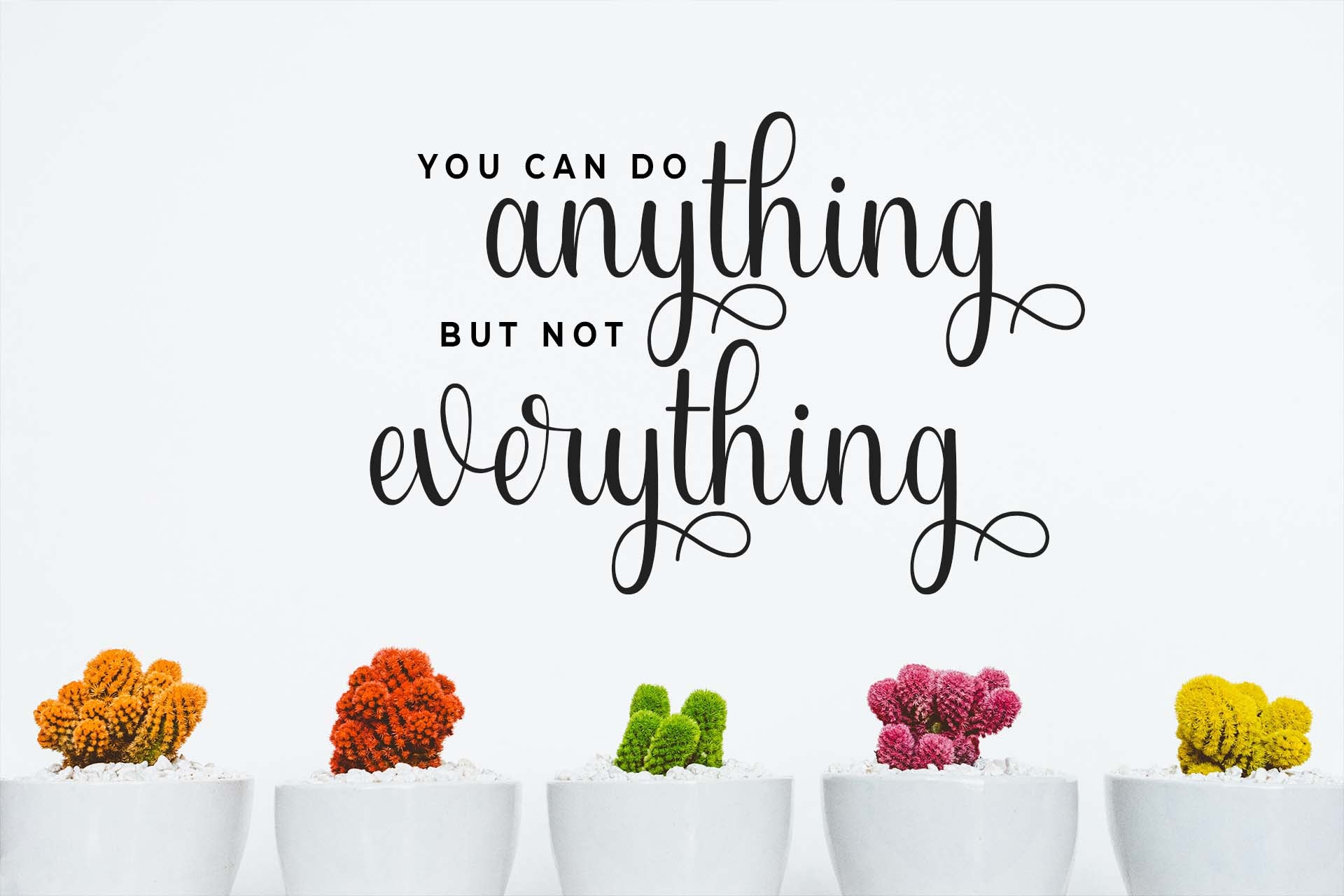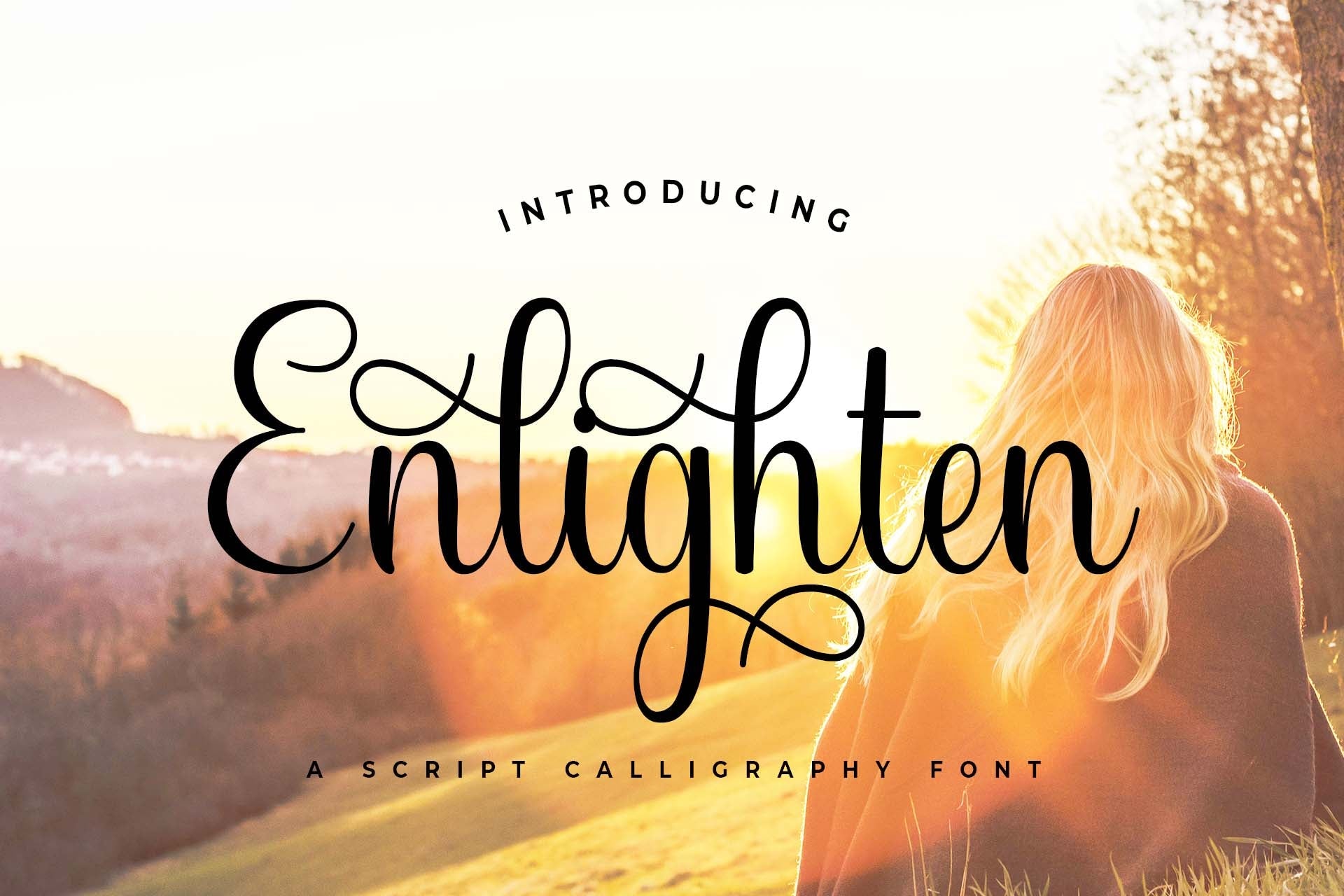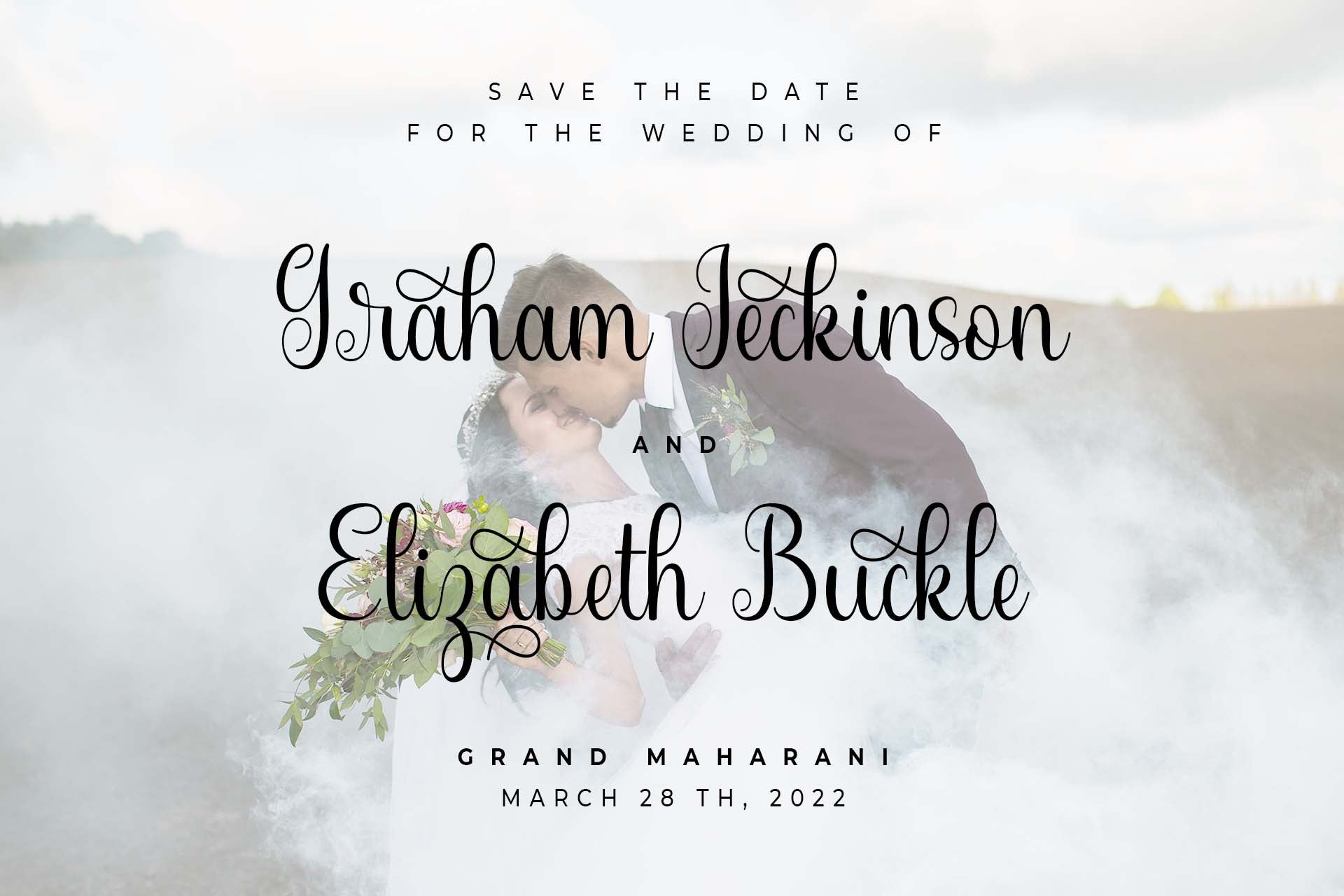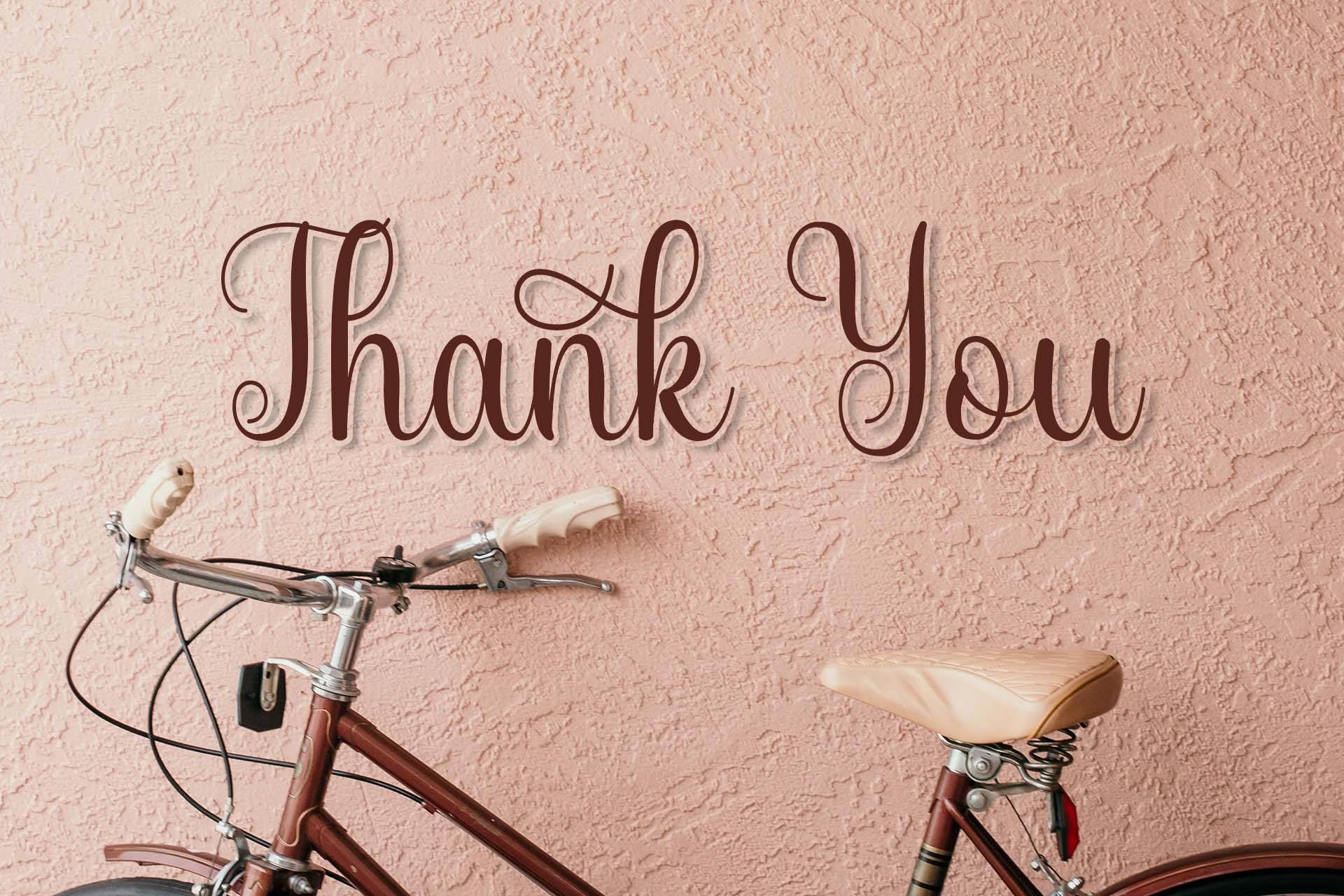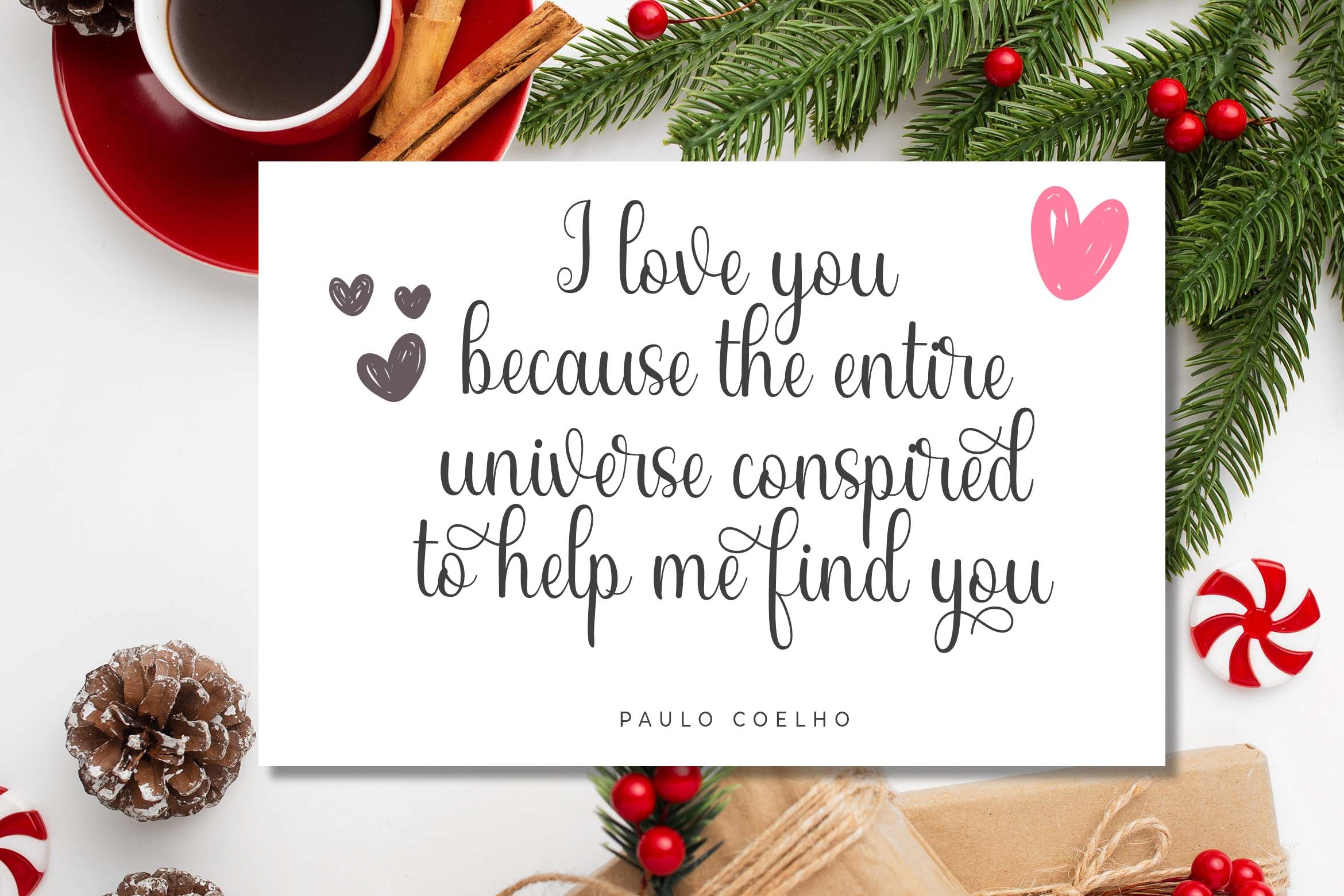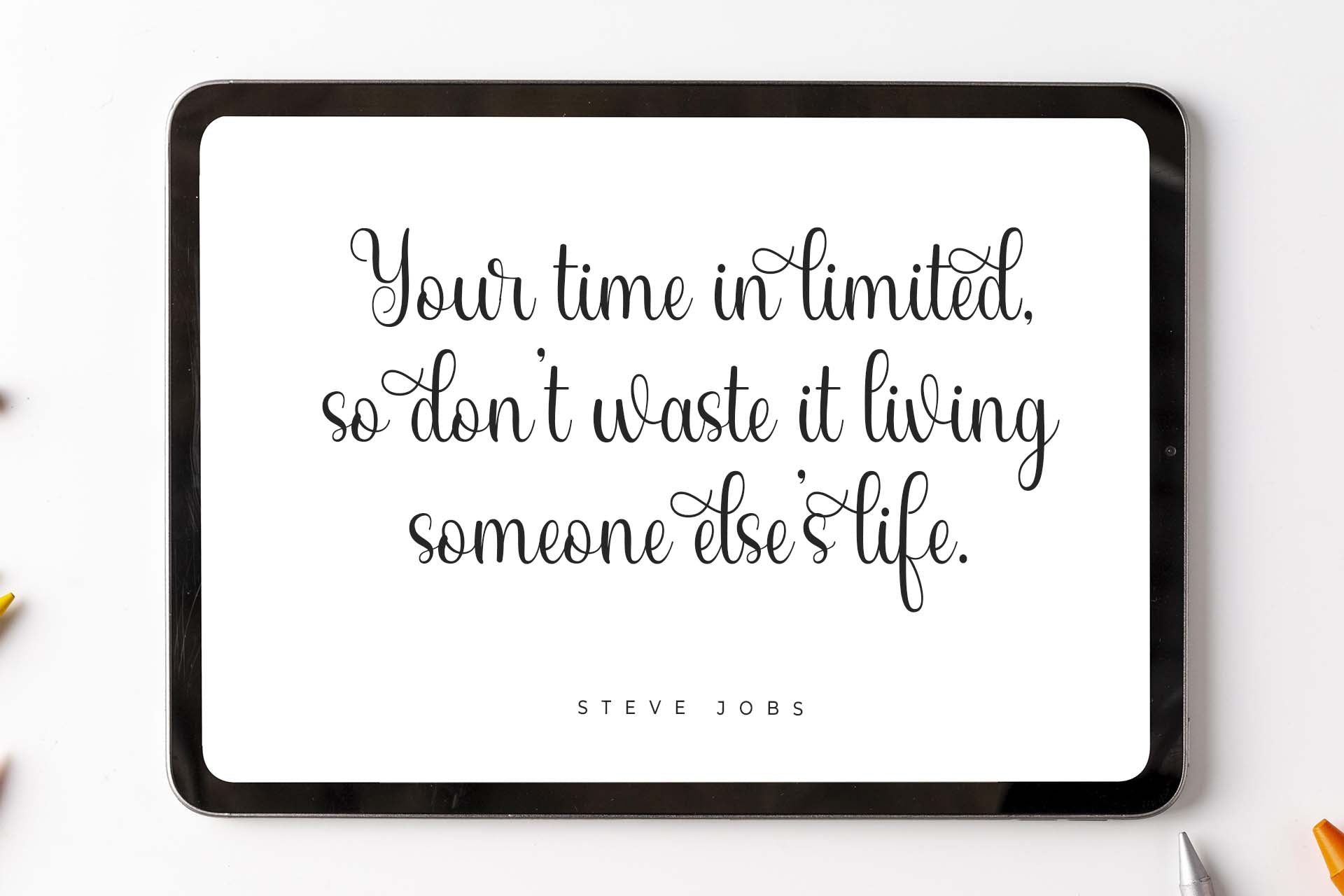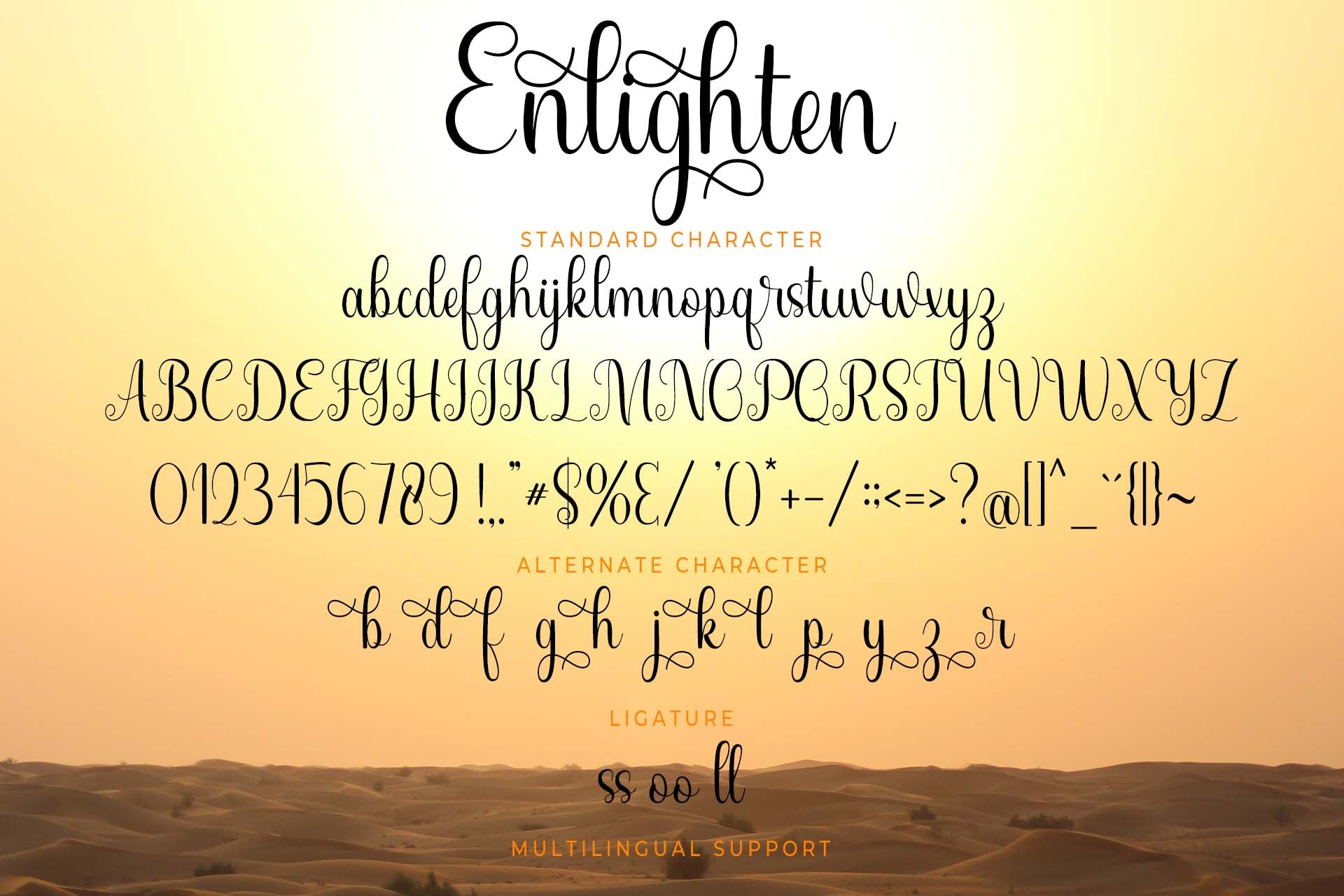
Script Fonts Enlighten 0 58 FacebookTwitterPinterestWhatsApp 1 of 8 ... ... ... ... ... ... ... ... About Enlighten is a stylish and distinct script font. This font is PUA encoded which means you can access all of the glyphs and swashes with ease! DOWNLOAD NOW